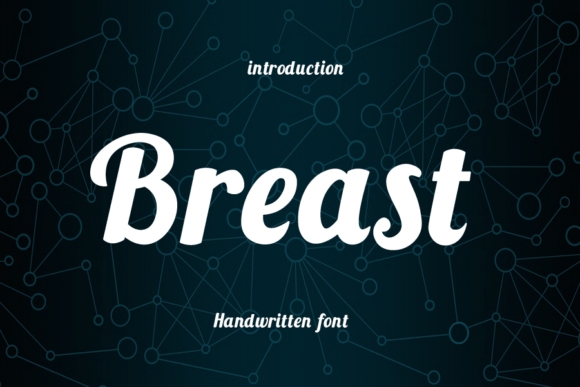
The Perfect Font for Your Next Masterpiece
Have you ever stared at a blank page, waiting for the perfect font to bring your creative vision to life? For many designers, this moment of inspiration is the spark that sets their imagination ablaze. And if you’re anything like them, you’ll love discovering a font that captures the essence of elegance and sophistication.
Meet Breast Font, a delicate and flowing handwritten font that’s sure to capture your heart. This timeless beauty is perfect for designers who want to add a touch of whimsy and romance to their projects. Whether you’re creating a wedding invitation, a children’s book, or a beautiful piece of art, Breast Font is the perfect companion to bring your ideas to life.
With its unique style and versatility, Breast Font is a valuable addition to any designer’s toolkit. Its distinct characteristics make it stand out from the crowd, allowing you to create truly spectacular designs that will leave a lasting impression. So why settle for ordinary when you can have extraordinary with Breast Font?
Breast Font Key Features
- Unique Characteristics: The Breast Font features a unique, hand-drawn design with a playful and feminine touch, making it ideal for creative and fashion-related projects.
- Font Style: Available in both regular and bold weights, providing flexibility for various design applications.
Designer Review: Breast Font
Overall, I think Breast Font has some unique characteristics that could make it stand out in the right context. ✨ The font’s quirky and playful feel could work well for a specific type of design project, such as a children’s book or a website for a fun, lighthearted brand. ✨ The font’s varying line heights and irregular letterforms add to its hand-drawn feel, which could be appealing to designers looking for something unconventional.
- The font’s x-height is quite high, which makes it easy to read at larger sizes.
- The font has a clear and consistent baseline, making it suitable for body text.
- The font comes in a range of weights, from light to bold, providing flexibility for designers.
However, I do have some reservations about using Breast Font in certain situations. ⚠️ The font’s irregularities can make it difficult to read at smaller sizes or in dense text blocks. ⚠️ Additionally, the font’s unconventional design may not be suitable for more formal or professional projects, where a more traditional font is often preferred.
Overall, I think Breast Font is a fun and interesting option for designers looking to add some personality to their projects. While it may not be suitable for every design context, it has the potential to be a great choice for the right project.
Breast Font is ideal for:
- Creating eye-catching headlines and titles.
- Adding a touch of femininity to your designs.
- Highlighting key information or calls to action.